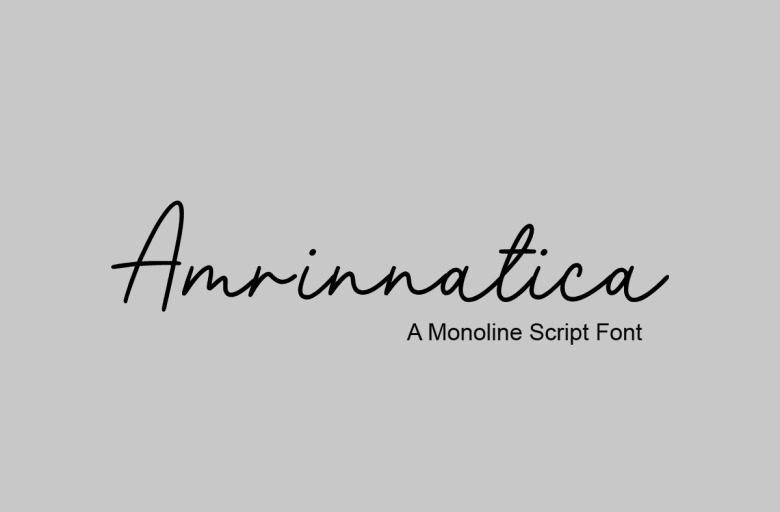
Amrinnatica Font
Amrinnatica is a sweet and subtle handwritten monoline script font that is crafted with great care for maximum results. It will add elegance and class to any of your design projects.
Amrinnatica Monoline Script Font